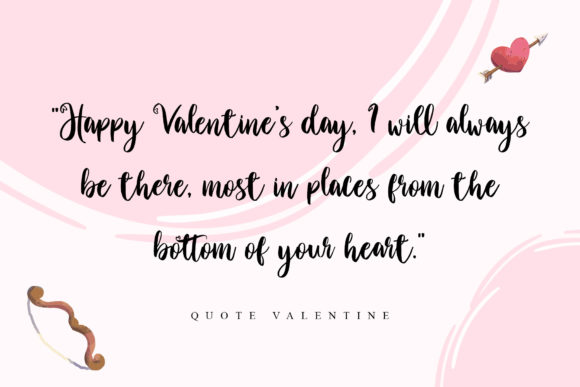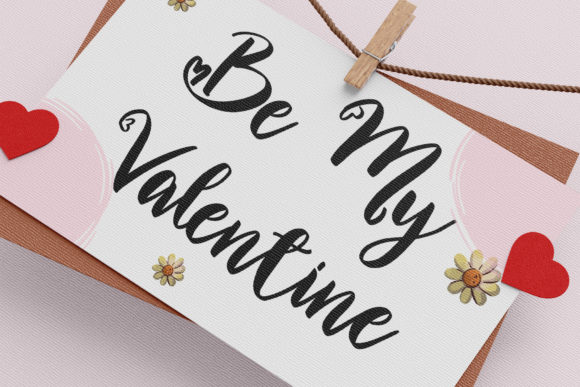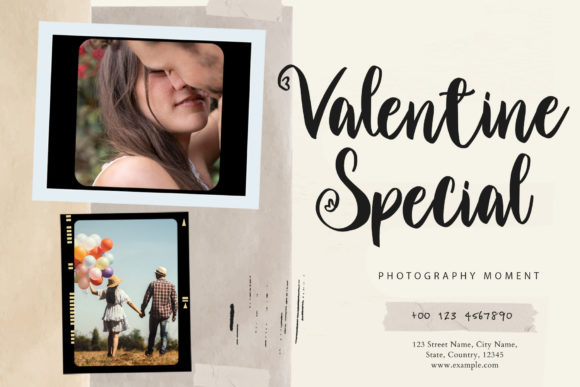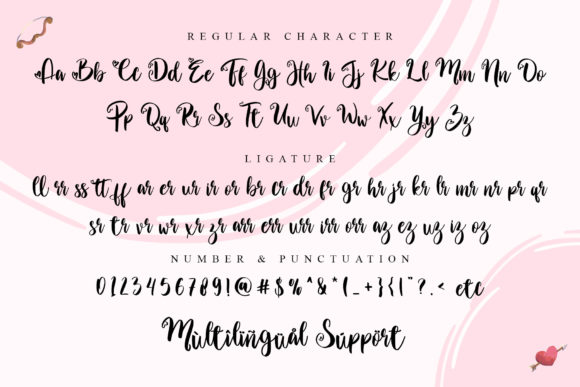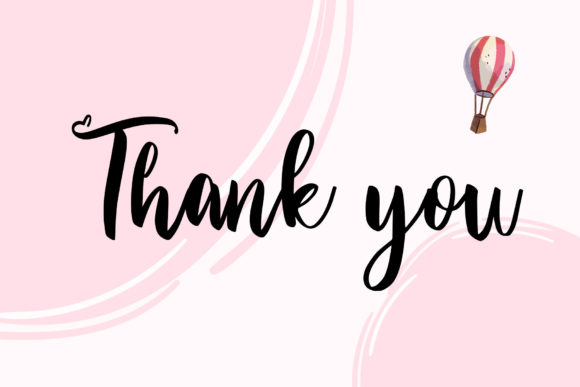
Ammallia Font
About Ammallia Font
Ammallia is an enchanting handwritten font. It is PUA encoded which means you can access all of the glyphs and swashes with ease! Add it confidently to your projects, and you will love the results.